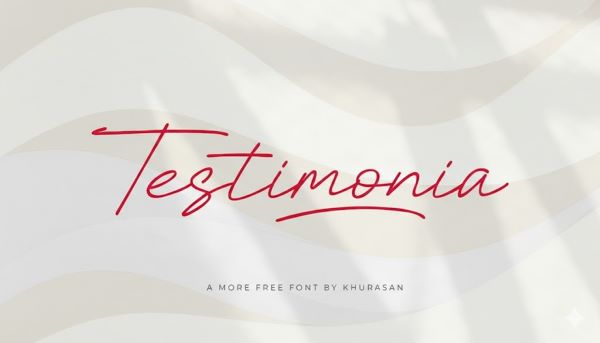
Testimonia Font
Testimonia is an elegant flowing script by Syafrizal a.k.a. Khurasan that strikes a rare balance between expressive calligraphic energy and everyday legibility. Its signature-style letterforms feel personal and genuine — the kind of handwriting that gives branding an authentic voice rather than a polished veneer. Ideal for logos, invitations, marketing materials, and social media content where warmth and sophistication need to coexist in perfect harmony. Every word written in Testimonia carries a sense of care and intention. Free for personal and commercial use, supporting 34 languages.